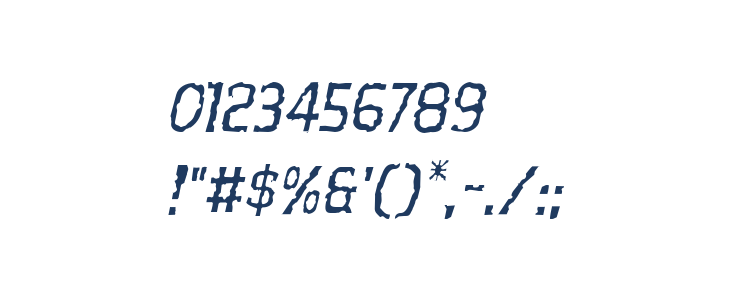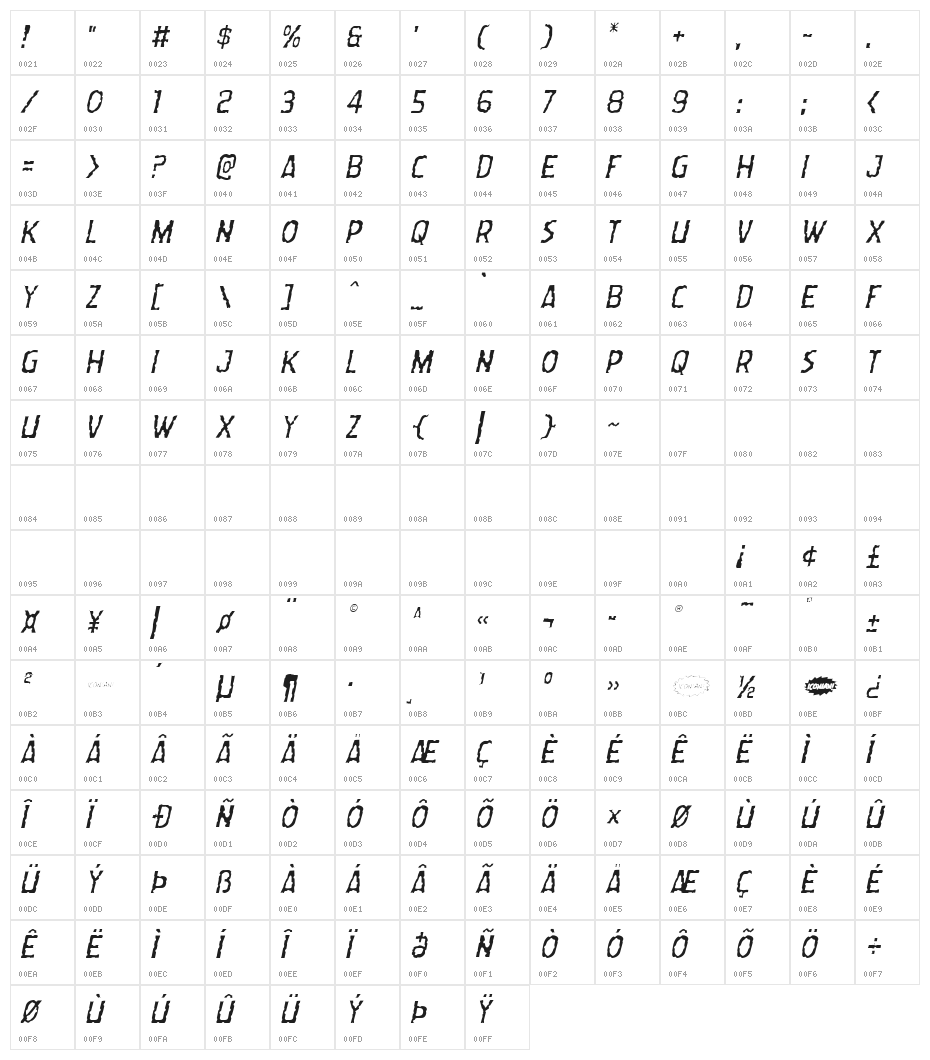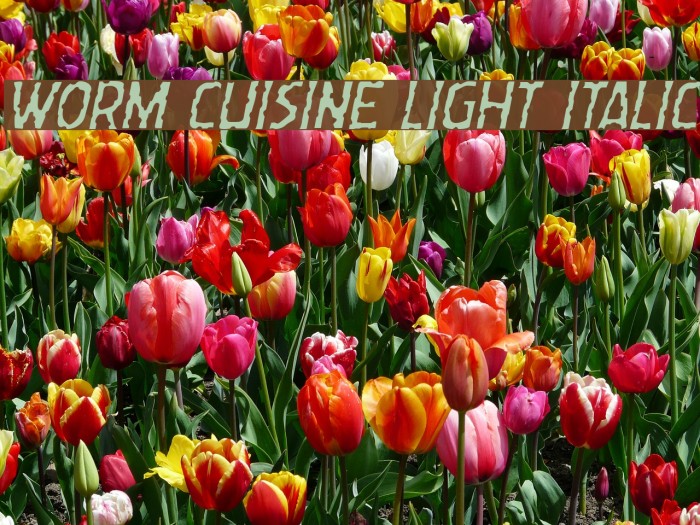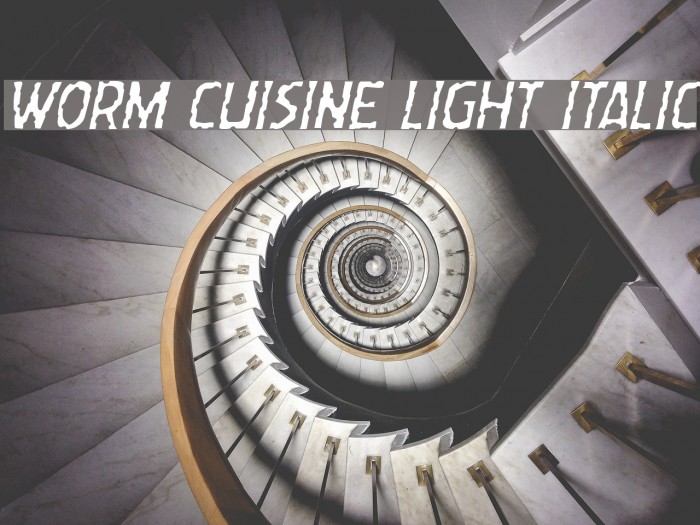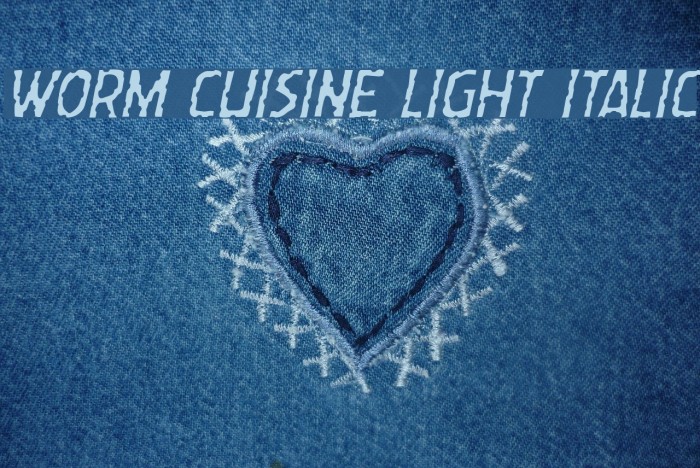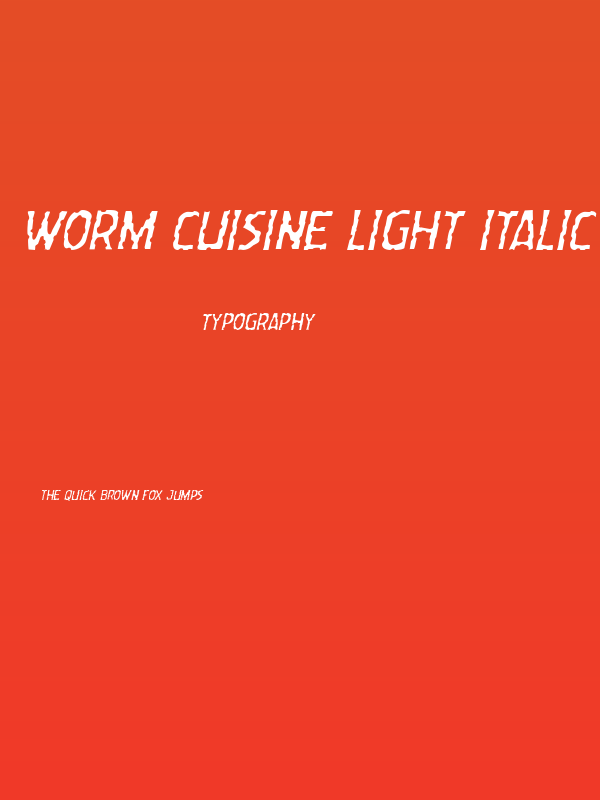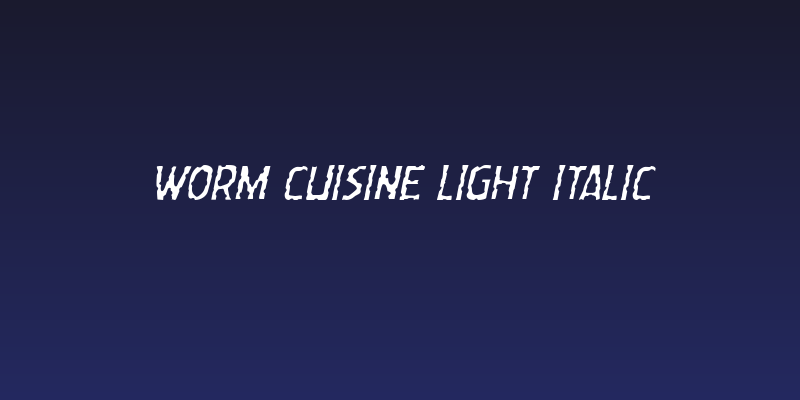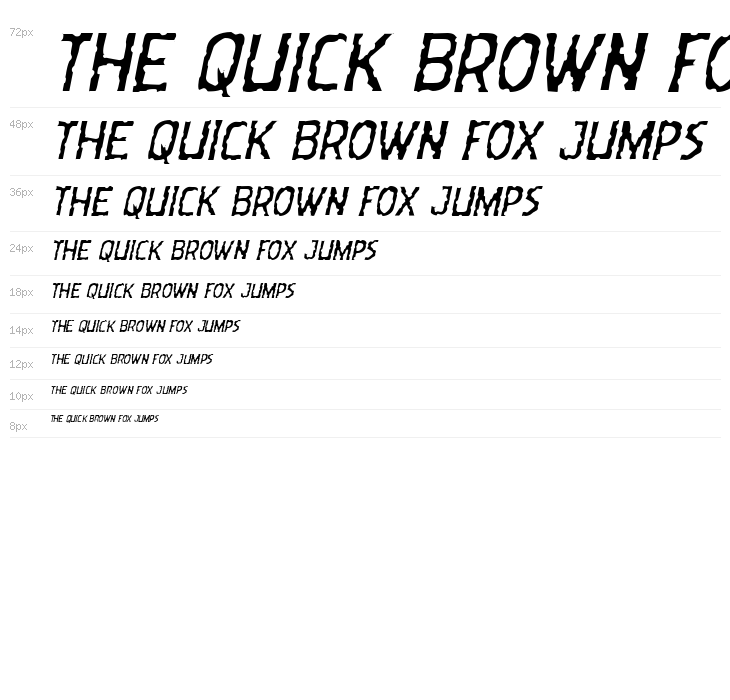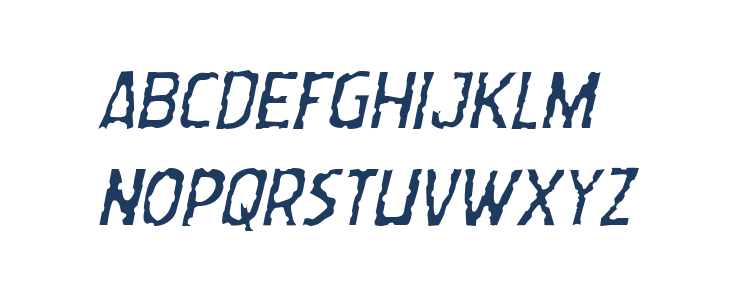
Worm Cuisine Light Italic Font
Worm Cuisine Light Italic Description
This font features a unique, organic design with a slightly distressed appearance, reminiscent of natural textures. Each character has a hand-drawn quality, with irregular edges that give it a dynamic and lively feel. The letters are slanted, adding a sense of movement and energy. The overall look is both playful and edgy, making it suitable for creative and unconventional projects. The font maintains a consistent weight throughout, with moderate spacing between characters, ensuring readability while preserving its distinctive style.
| Proposed Projects | Ideal for creative projects such as posters, album covers, or branding for eco-friendly products. |